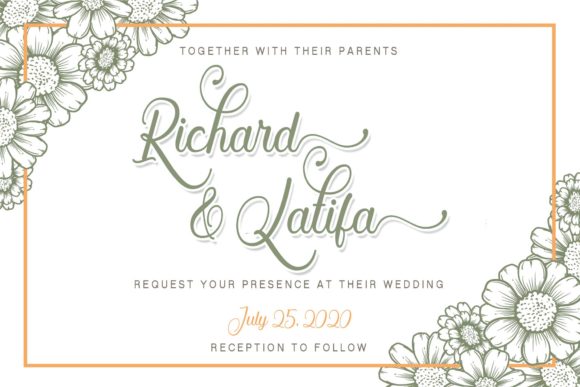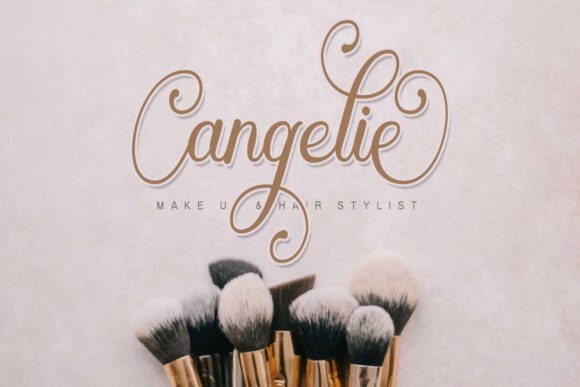
Yaldã Font
db-ku.com - Script & Handwritten -- Yaldã is a beautiful, sweet, and curly handwritten font. This sweety font will look gorgeous on a variety of design ideas. It will add a joyful and romantic touch to each of your projects!